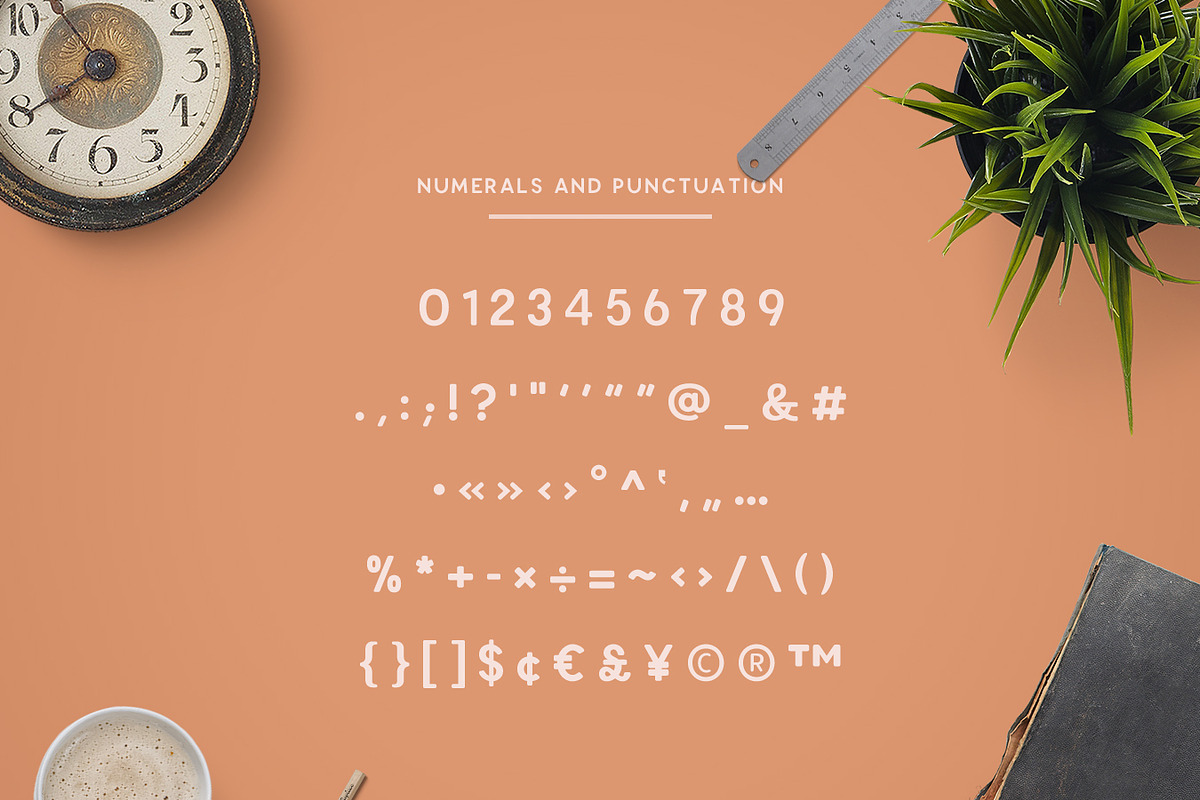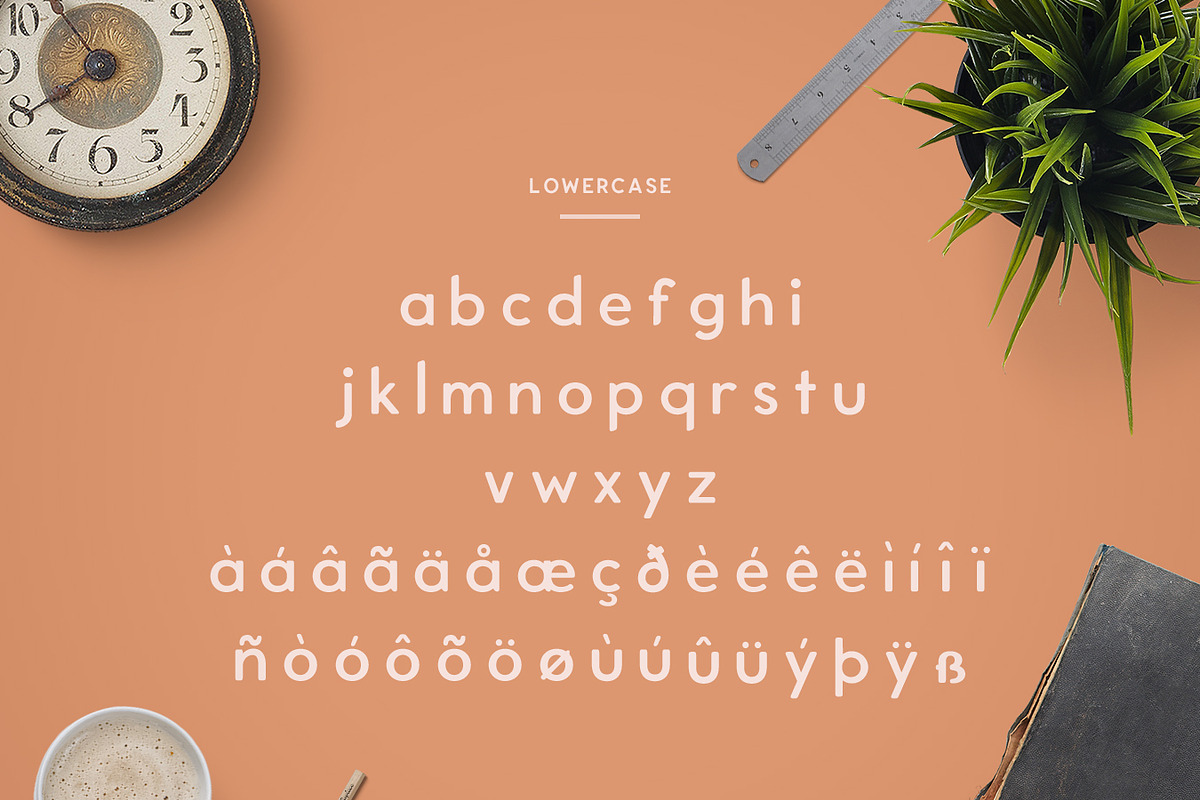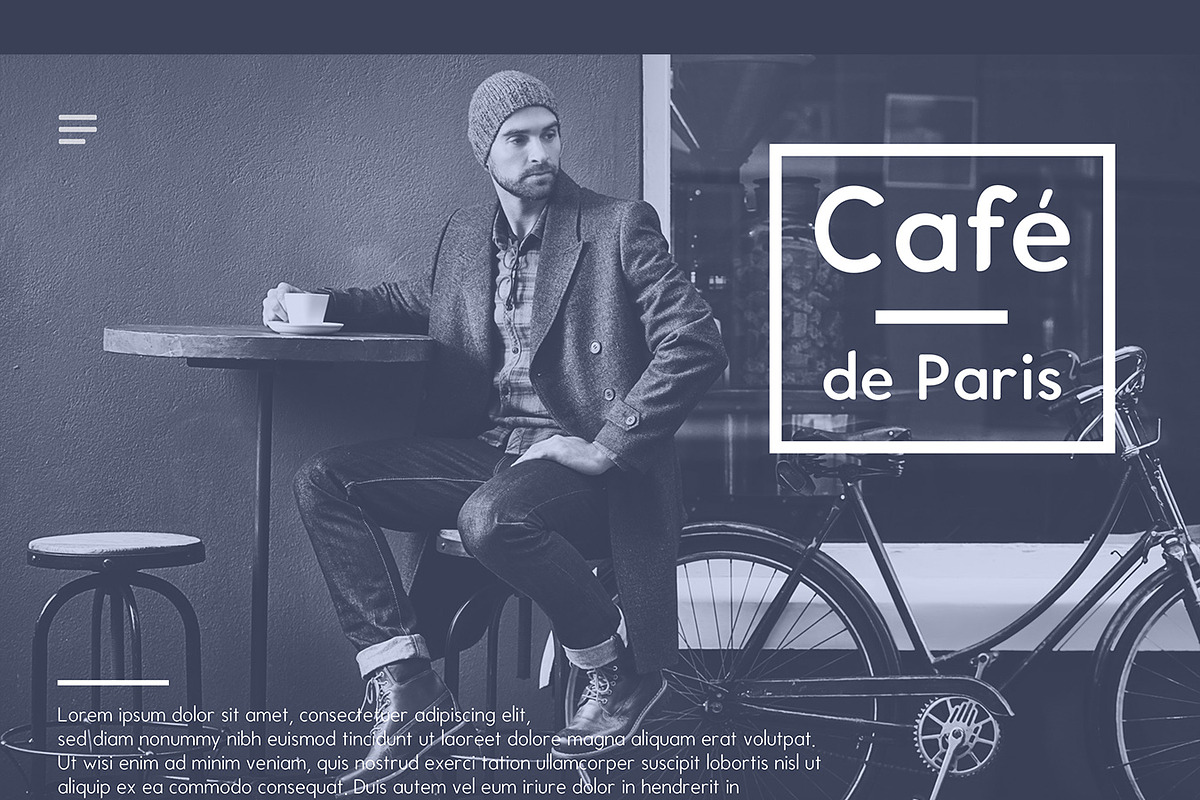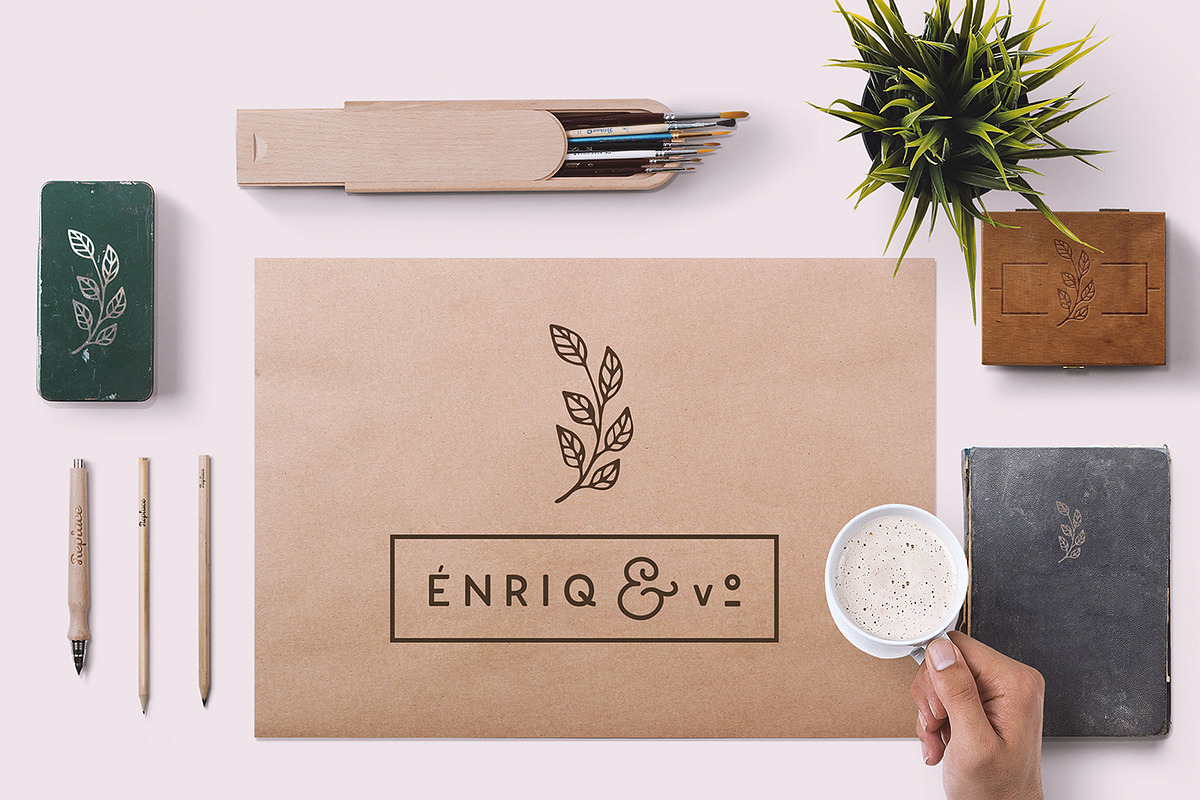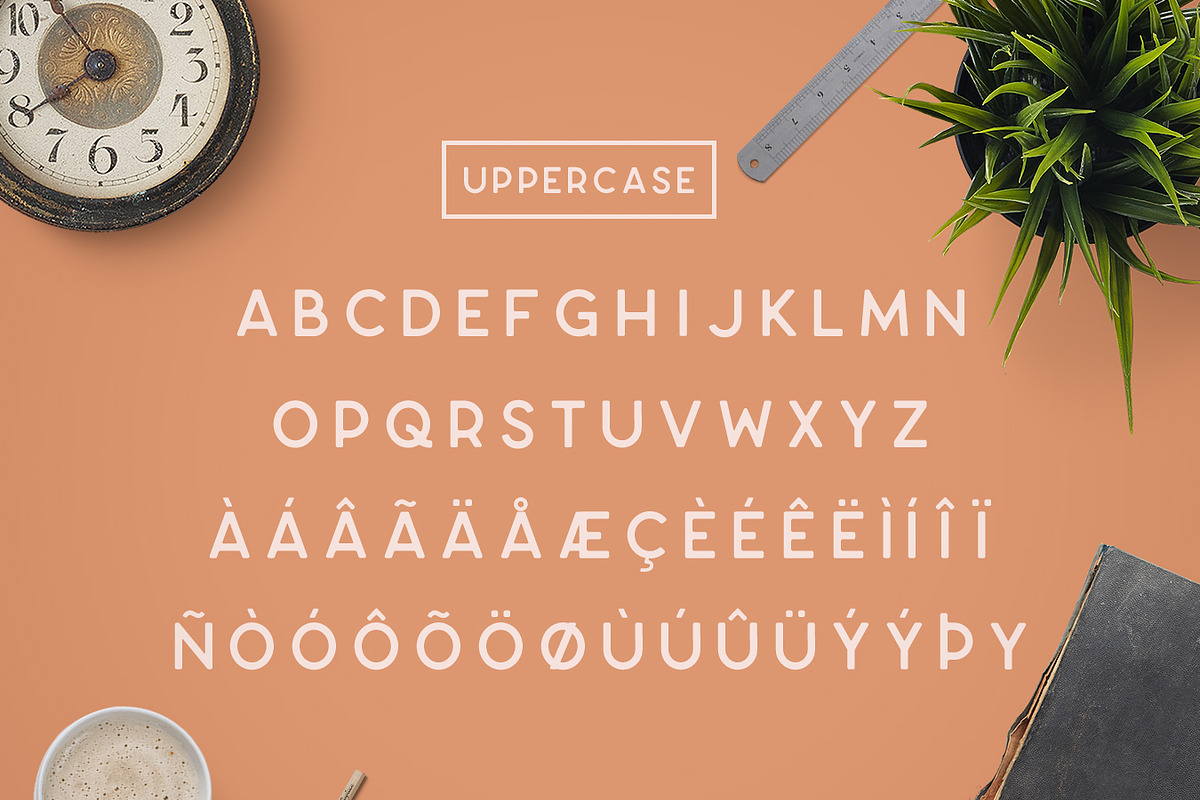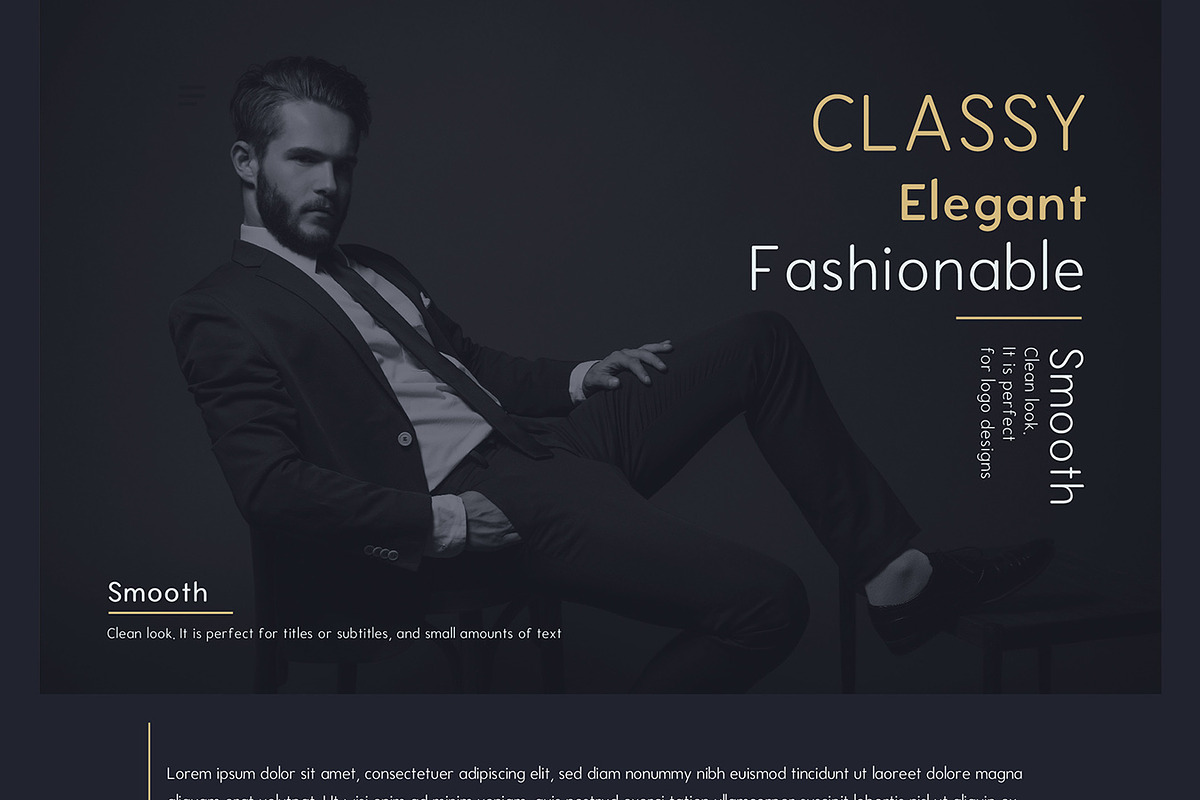
Enriq Round Sans Serif Font
Enriq Round Sans is an Elegant Sans serif typeface with smooth rounded edge style, Fashionable, Classy but still Modern. Designed with powerful opentype features in mind, and some nuances aid in legibility and give it a harmonious appearance for both texts and headlines. Perfect for branding, editorial and signage, works great for bigger applications. Each weight includes extended language support, ligatures and more. Perfectly suited for graphic design and any display use. It could easily work for web, signage, Software Interfaces, corporate as well as for editorial design.
Multiple Languages Supported
- Each weight includes extended language support, ligatures and more.
- Six styles available
- Regular
- Light
- Thin
- Medium
- Bold
- Black
- Multiple Languages Supported